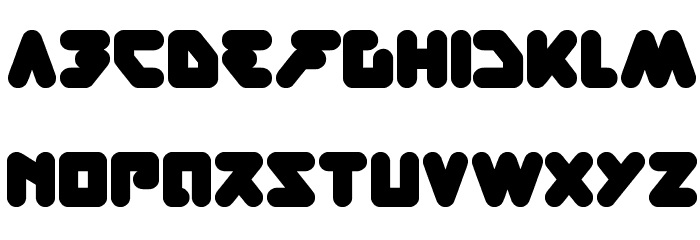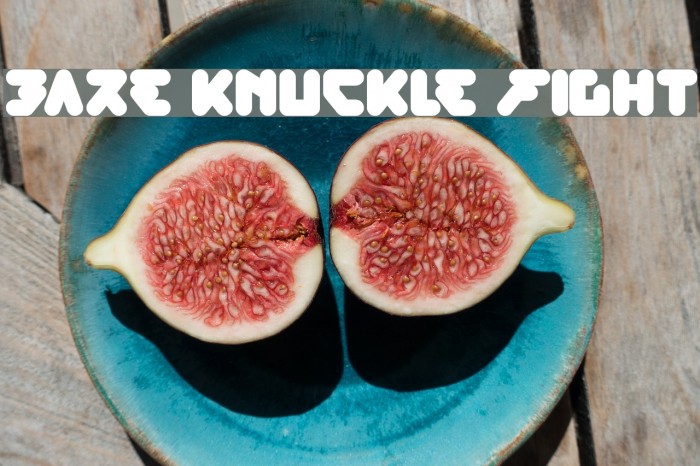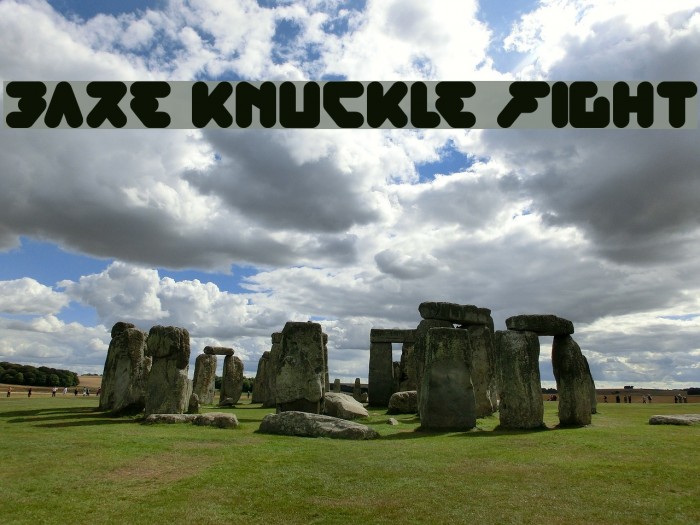
bare knuckle fight Font
This font features a bold, geometric style with a strong emphasis on angular shapes and thick strokes. Each character is constructed with a combination of straight lines and sharp angles, giving it a futuristic and industrial appearance. The uniformity in stroke width across all characters contributes to a cohesive and robust look. The font's design is highly stylized, making it ideal for attention-grabbing headlines or logos. Its unique structure and bold presence make it stand out, while the consistent spacing between characters ensures readability despite its unconventional form.
A bold, geometric font with angular shapes and thick strokes, ideal for headlines.
- Proposed Projects: This font is perfect for projects that require a modern and bold aesthetic, such as branding, posters, video game titles, or any design that aims to convey strength and innovation.